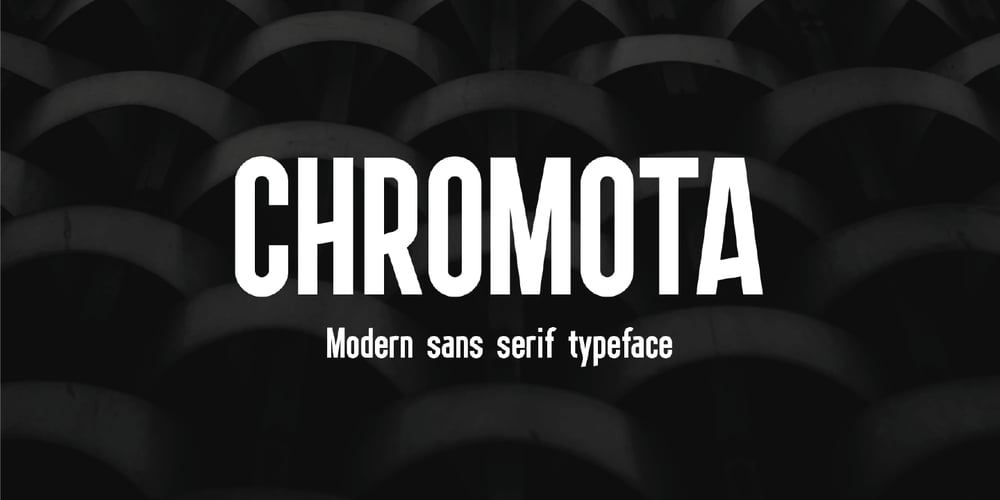
Chromota Font Family was designed by Ilyas Yunusov and published by Kulturrrno. Chromota contains 4 styles and family package options. Chromota is a modern sans-serif typeface with asymmetric glyph design.The family consists of 2 styles, a regular and a rounded, each with matching italics. It contains an extended Latin glyphs set and a basic Cyrillic set.Chromota is great for logos, branding, headlines.